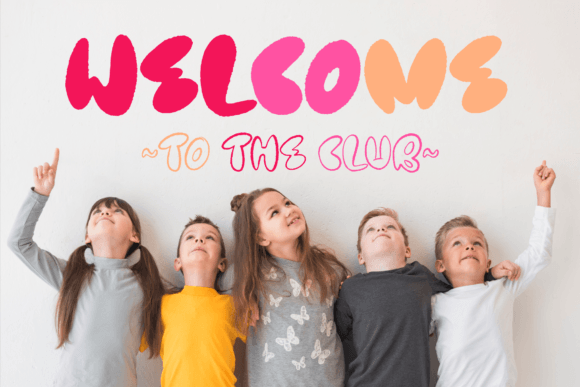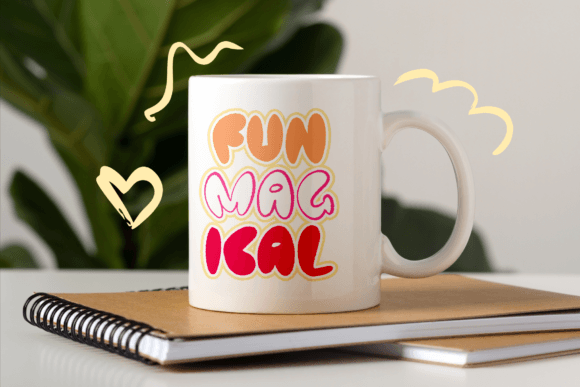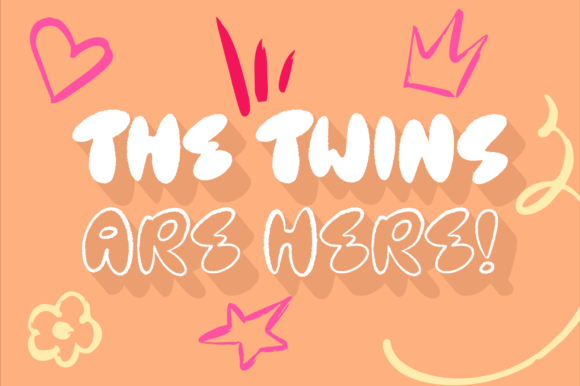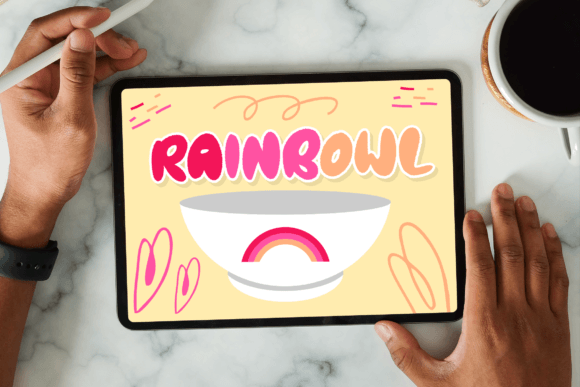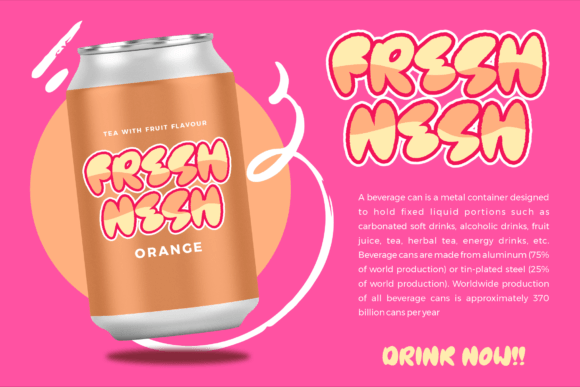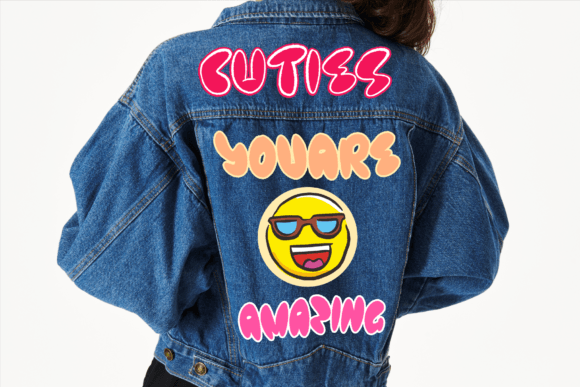
Introduction to Scrible Plumy Font
Scrible Plumy is an incredibly cool and unique display font.
It has a modern yet whimsical style and it will undoubtedly immerse your designs into a magical world .